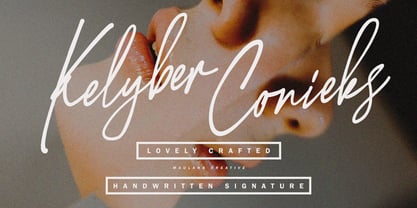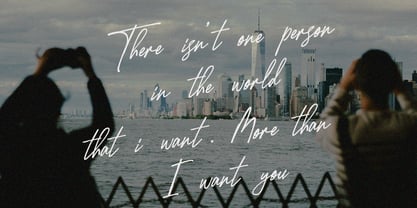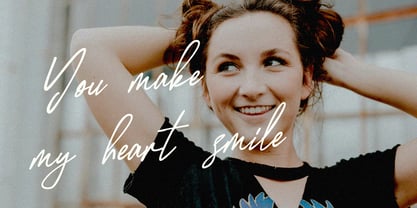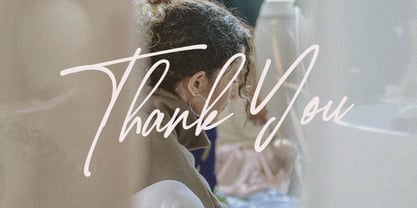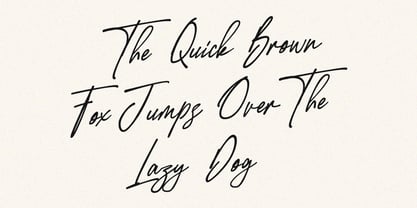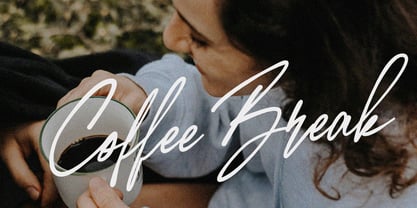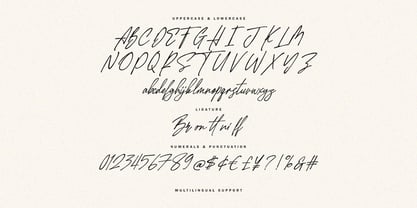
MC Kelyber Conieks
by Maulana Creative
The MC Kelyber Conieks Font Family was designed by Gilang Maulana and published by Maulana Creative. MC Kelyber Conieks contains 1 styles. More about this family
Kelyber Conieks is a beautifully fluid and authentic handwritten signature script that effortlessly captures a sense of sophisticated natural style. This font is meticulously crafted to mimic genuine hand-lettering, making it perfect for projects that require a, upscale, and intimate touch. Key Features: - Natural Flow: The elegant, looping strokes and organic connections give your text a truly authentic, hand-drawn feel. - Versatility: Ideal for a wide range of design needs, from high-end branding to personal stationery. - High-End Appeal: Its refined script style is perfect for luxury products, fashion, beauty, wedding invitations, photography watermarks, and editorial design. Kelyber Conieks is the perfect choice for: - Branding & Logos: Create memorable, signature-style brand identities. - Product: Add a touch of handcrafted luxury to your labels. - Social Media & Quotes: Make your content stand out with elegant typography. - Wedding & Event Invitations: Deliver a personalized and romantic feel.
Designers: Gilang Maulana
Foundry: Maulana Creative